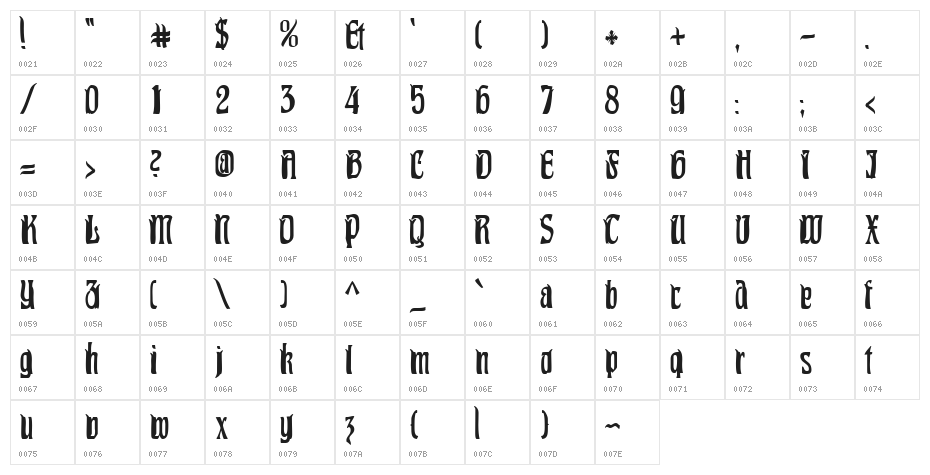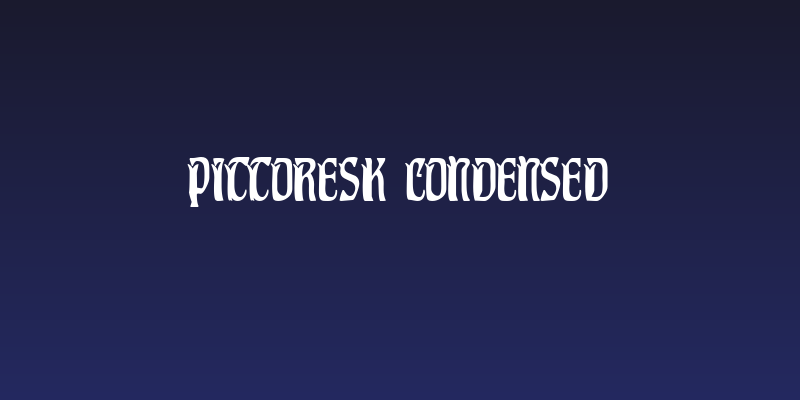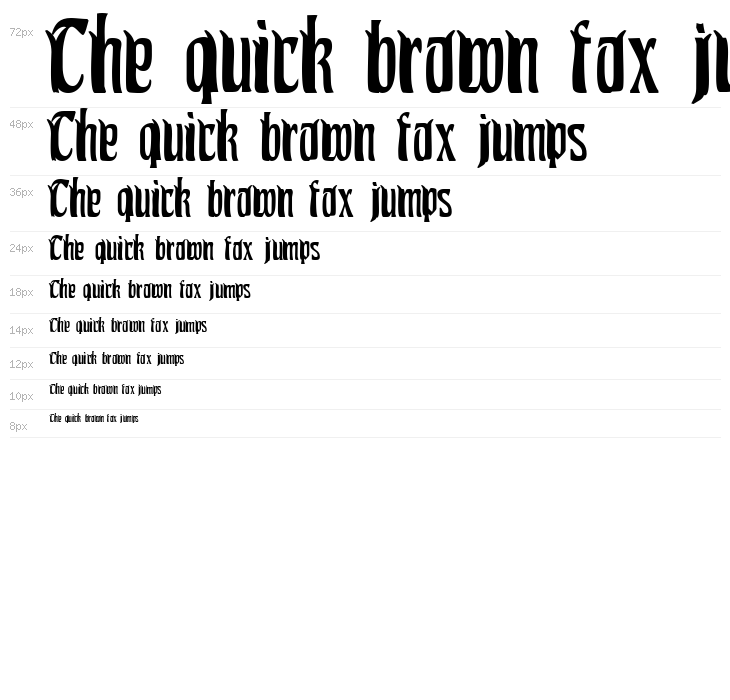
Pittoresk Condensed Font
Pittoresk Condensed Description
This font features a striking and bold design with a condensed structure, characterized by its sharp, angular lines and dramatic serifs. The uppercase letters are particularly tall and narrow, giving a sense of height and elegance. The lowercase letters maintain the same condensed style, with unique curves and flourishes that add a decorative touch. The numerals are consistent with the overall style, offering a cohesive look. Special characters are designed with the same attention to detail, ensuring they blend seamlessly with the rest of the font. This font's distinct appearance makes it ideal for creating a strong visual impact.
| Proposed Projects | Ideal for branding, poster design, and headlines where a strong visual impact is desired. |